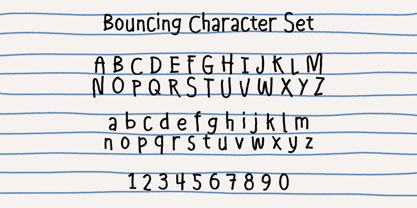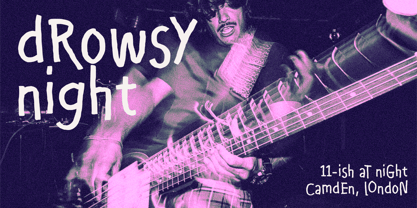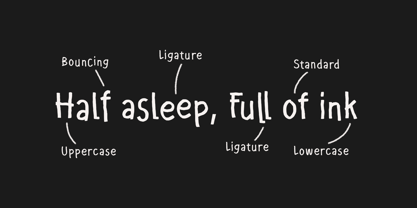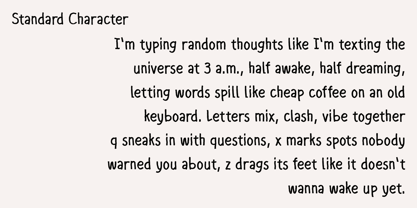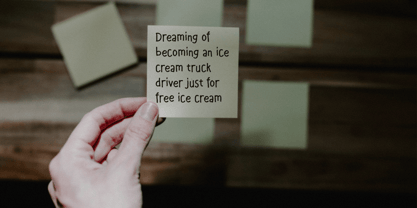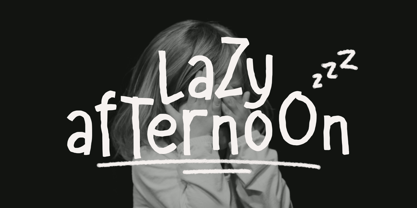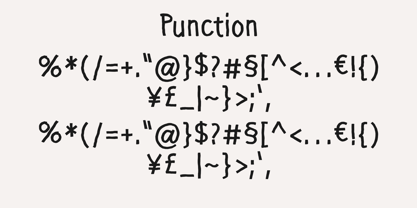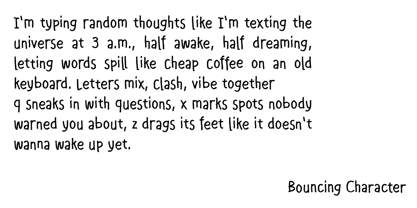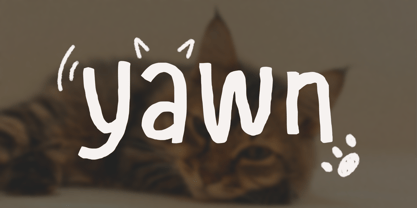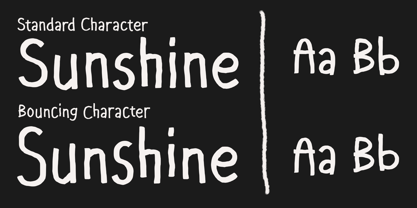
3 AM Scribbles
von Ethylene
Die Schriftfamilie 3 AM Scribbles wurde von Cherly Nugroho entworfen und von Ethylene veröffentlicht. 3 AM Scribbles enthält 2 Stile und Familienpaketoptionen. Mehr über diese Familie
3 AM Scribbles is a messy handwritten font inspired by late-night thoughts, spontaneous ideas, and imperfect human writing. It features natural strokes, uneven shapes, and an organic rhythm that brings warmth and authenticity to your typography. With two styles included, this font allows subtle variation and playful contrast in your designs. Perfect for branding, posters, social media, packaging, quotes, and creative projects that need a personal, relaxed, and expressive handwritten feel.
Designer: Cherly Nugroho
Foundry: Ethylene